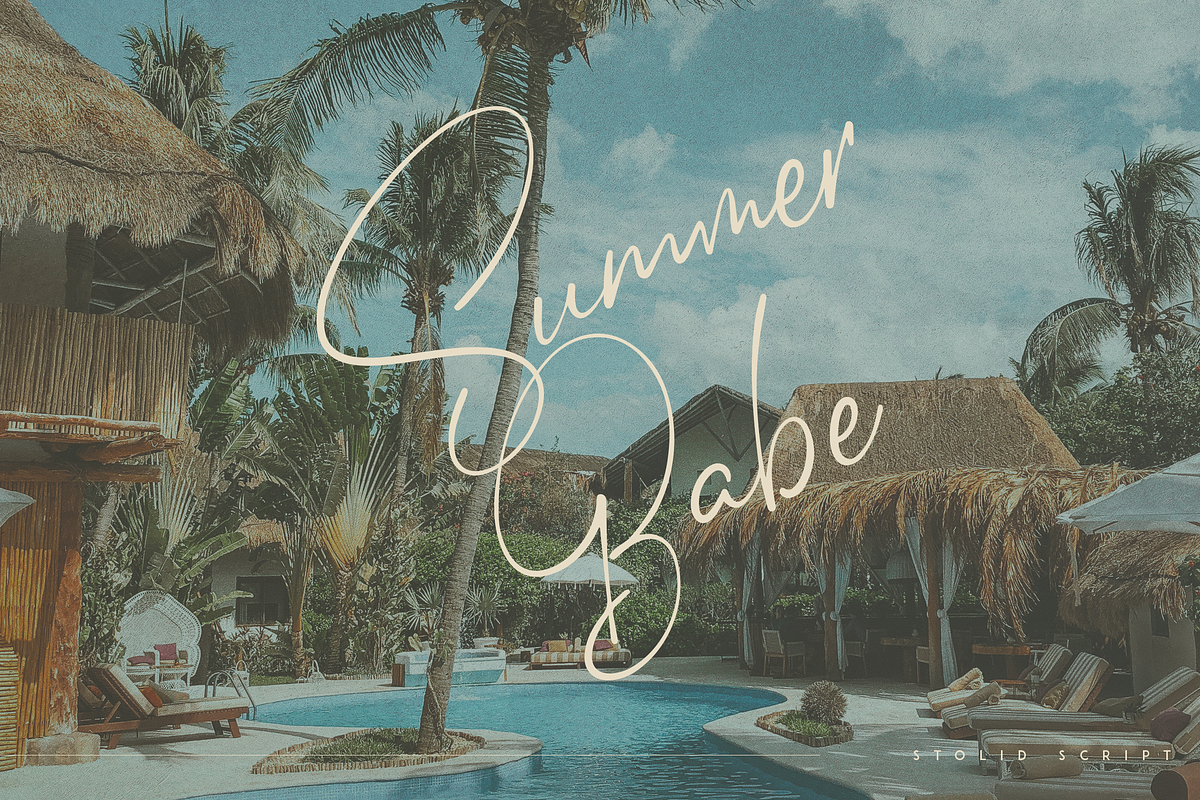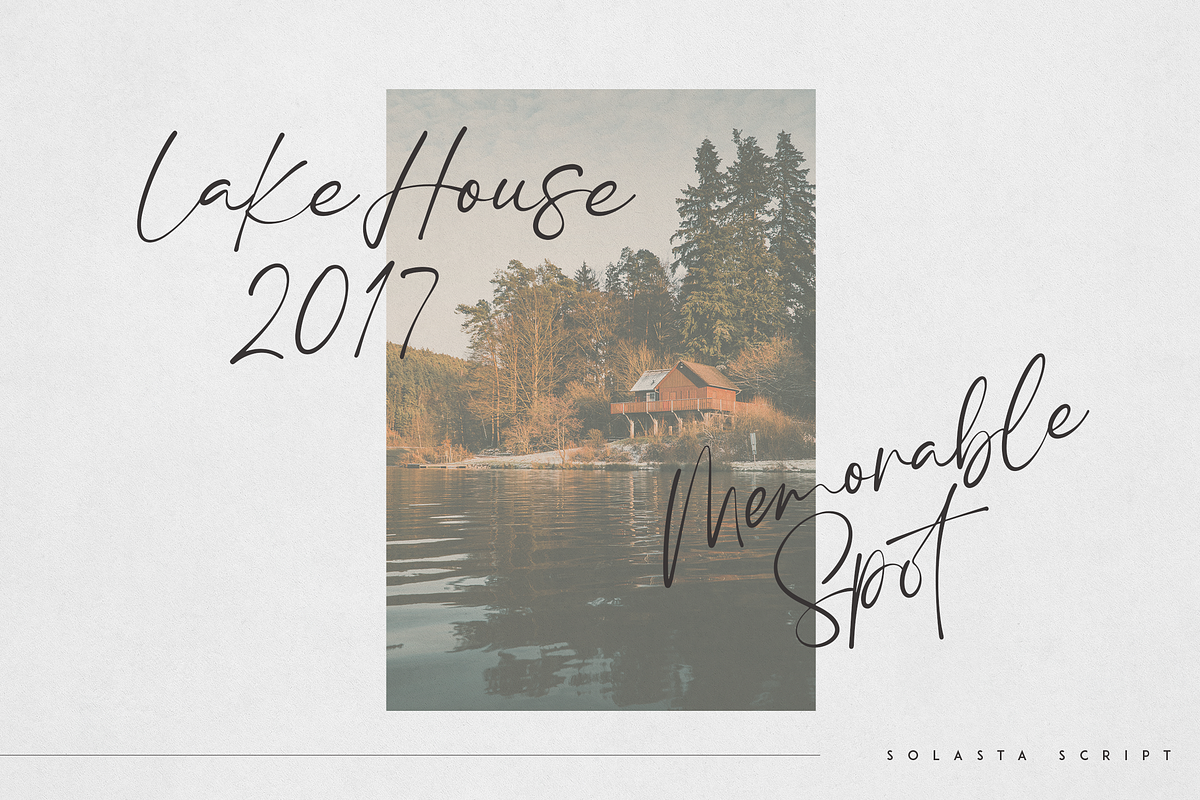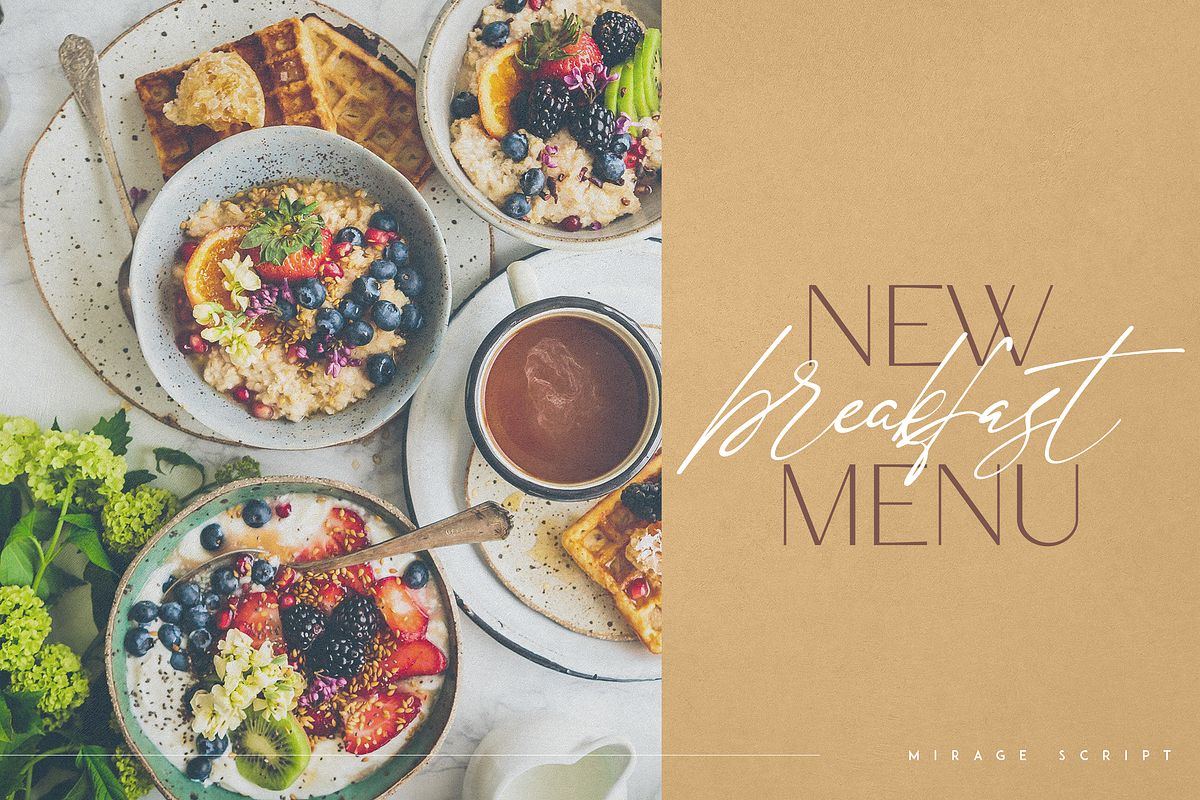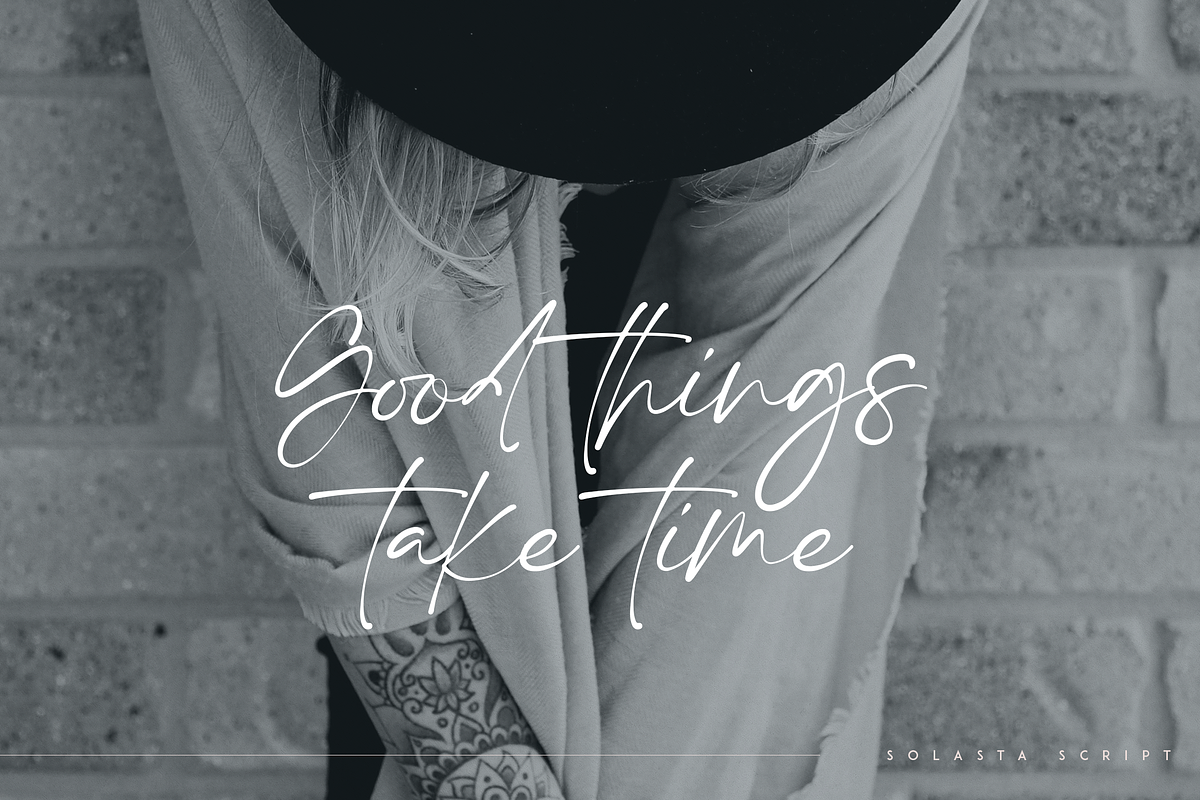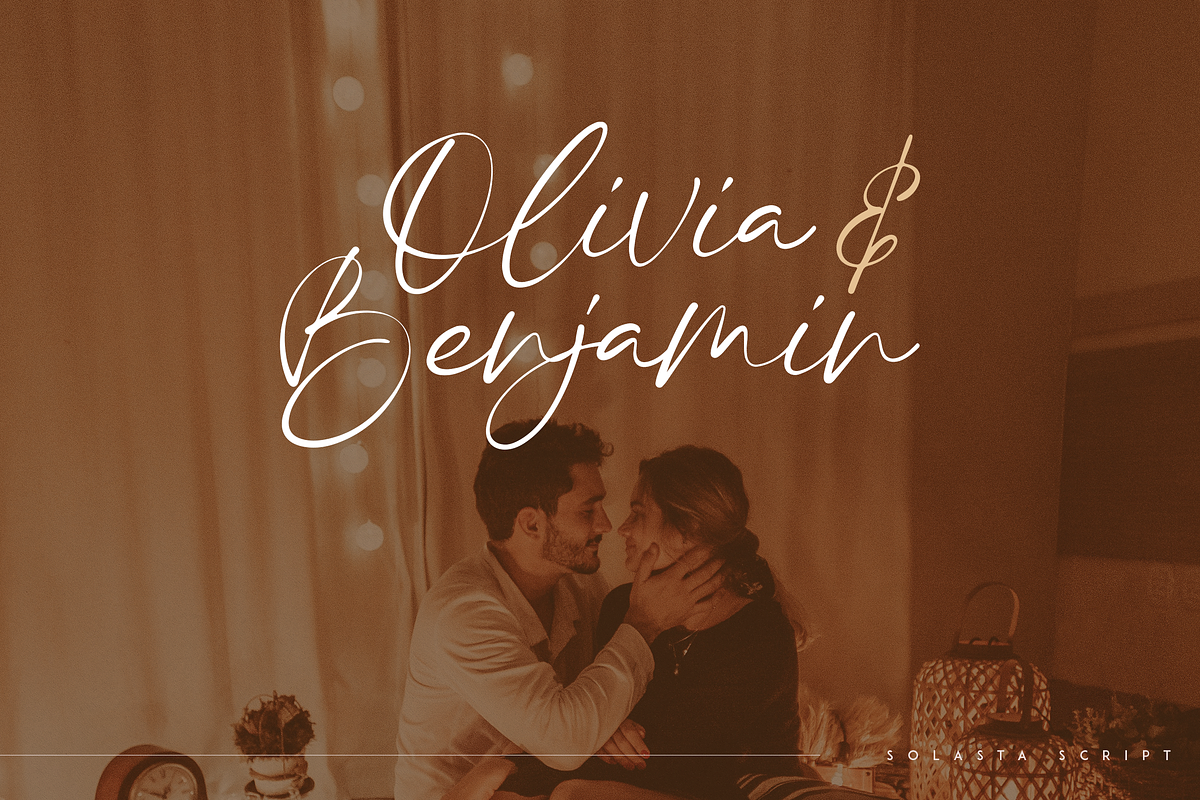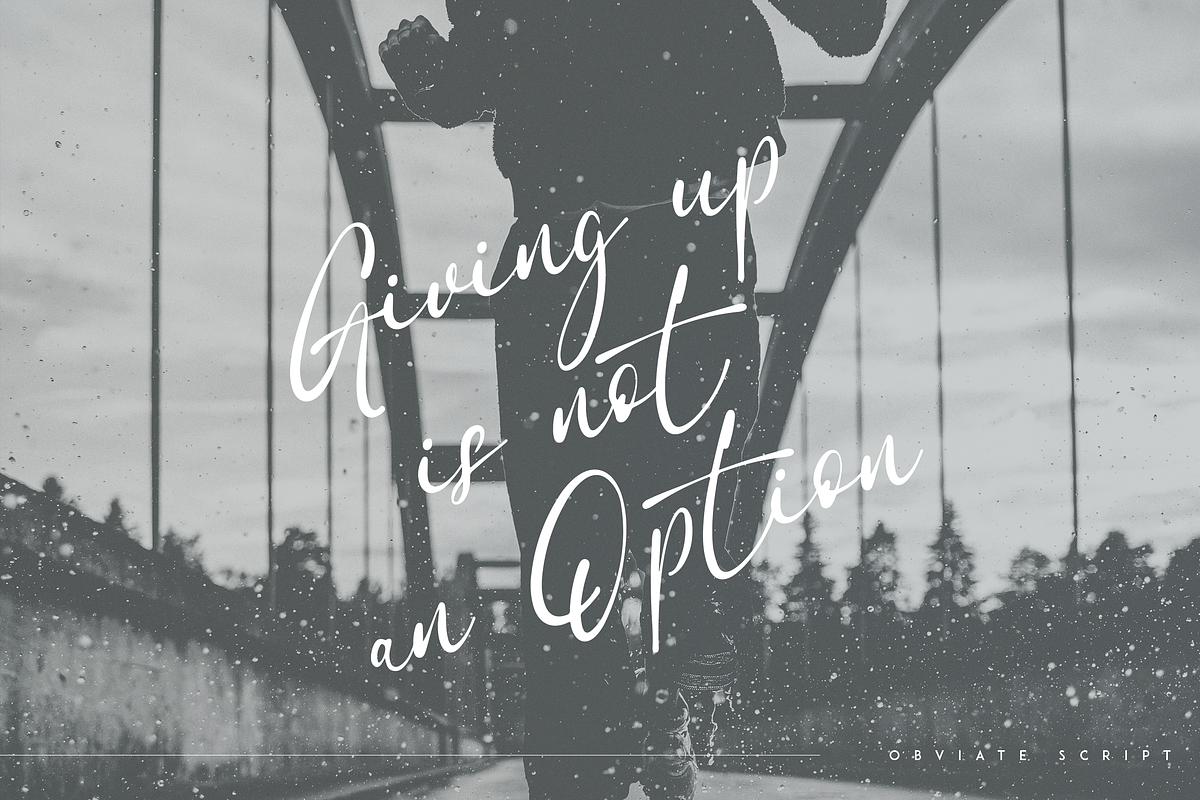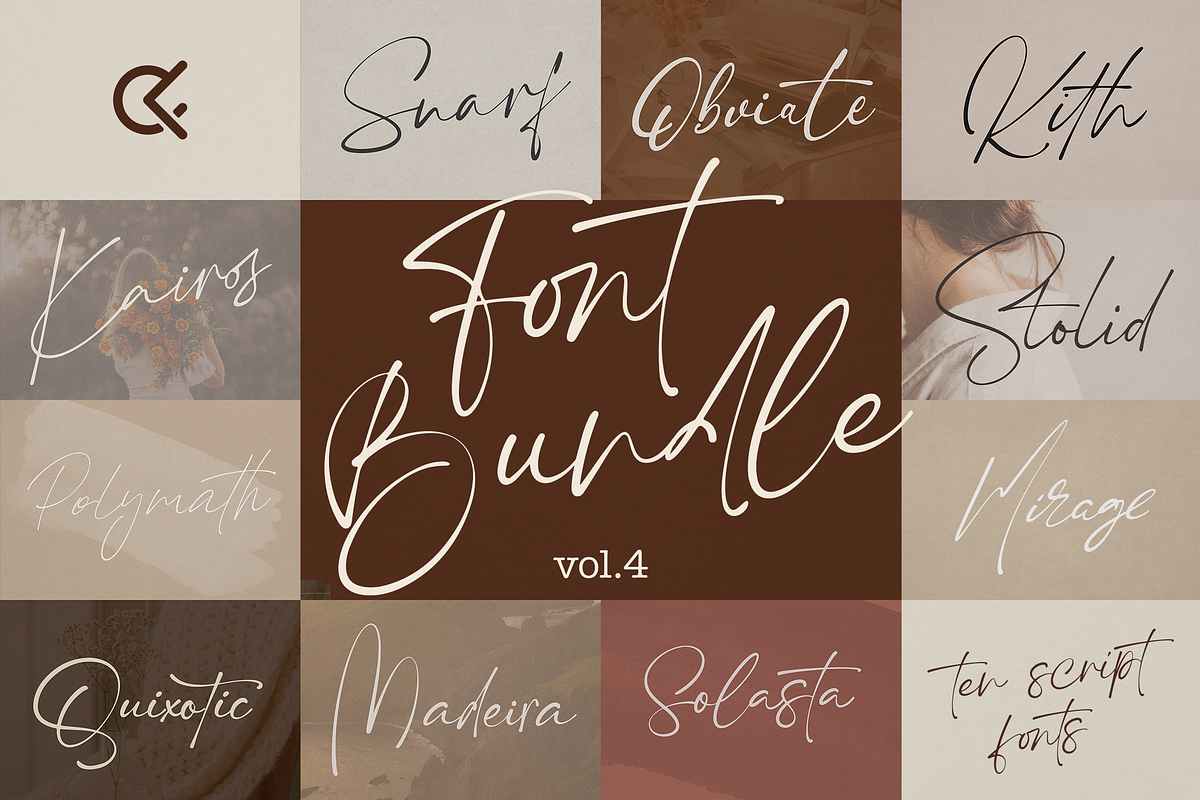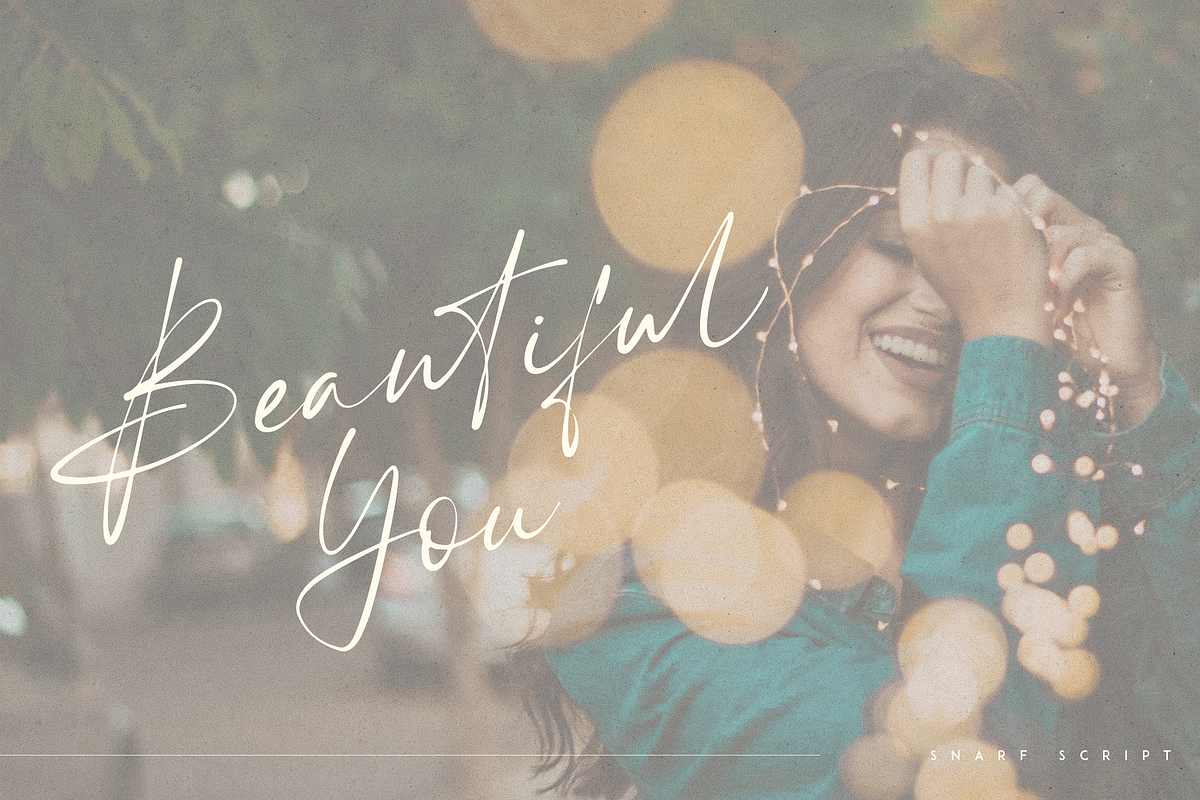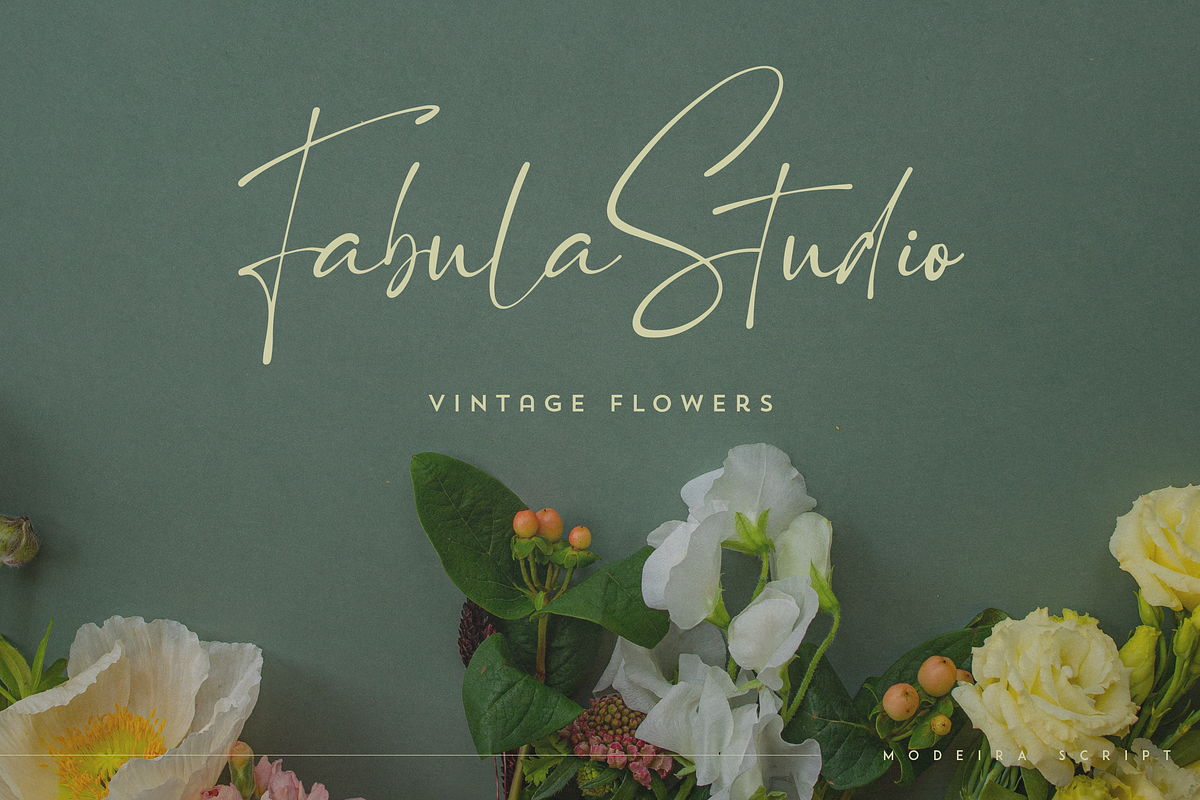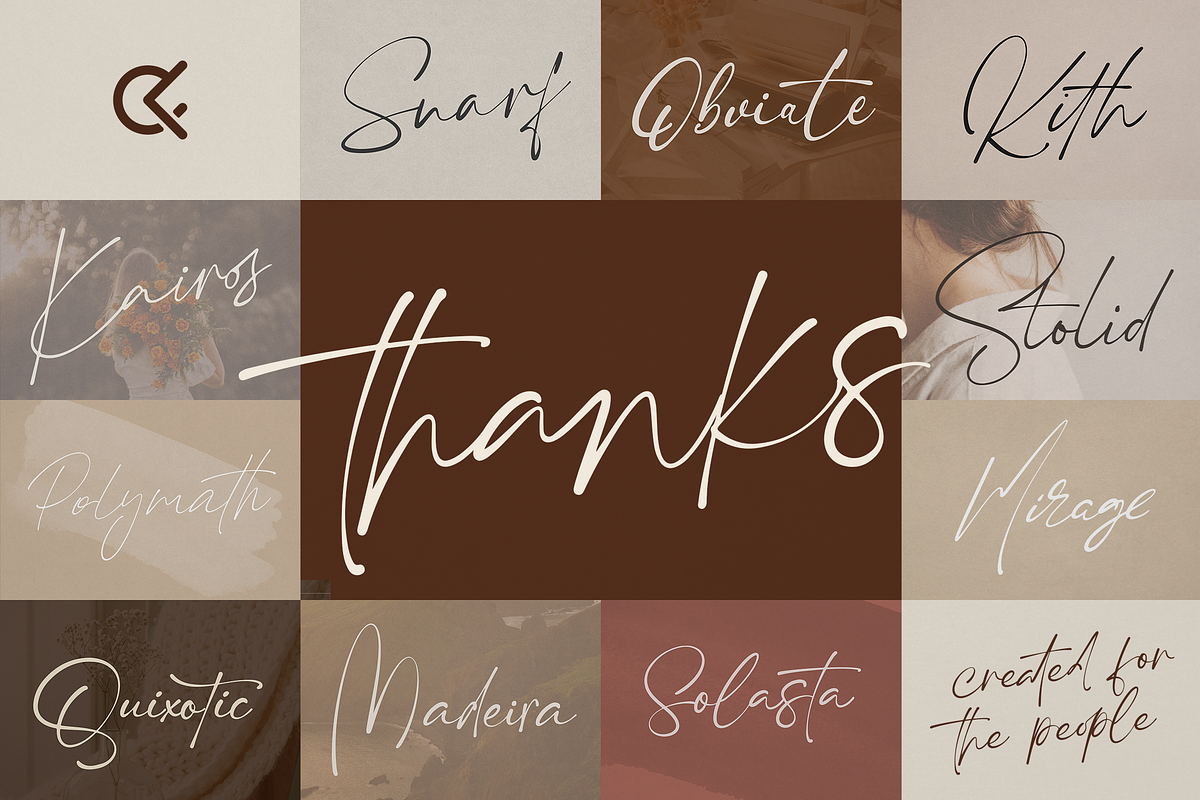
Introducing Font Bundle Vol.4 - 10 scripts
Make your projects stand out with Font Bundle Vol.4! This collection of 10 stylish, sophisticated script fonts feature ligature glyphs and multilingual support that provide great versatility in small or large sizes - perfect for everything from crafting a logo to sprucing up product packaging or magazine headers. You'll be sure wow everyone with the beautiful hand lettered elegance this bundle brings!
PRODUCTS INCLUDED
- Snarf modern script - https://creativemarket.com/OnlyFonts/7524831-Snarf-modern-script
- Obviate organic script - https://creativemarket.com/OnlyFonts/7534002-Obviate-organic-script
- Kith - handmade script - https://creativemarket.com/OnlyFonts/7552960-Kith-handmade-script
- Stolid - modern script font - https://creativemarket.com/OnlyFonts/7795410-Stolid-modern-script-font
- Polymath - organic script font - https://creativemarket.com/OnlyFonts/7798288-Polymath-organic-script-font
- Kairos - modern script - https://creativemarket.com/OnlyFonts/7801802-Kairos-modern-script
- Quixotic - handmade script font - https://creativemarket.com/OnlyFonts/7807562-Quixotic-handmade-script-font
- Solasta - organic script font - https://creativemarket.com/OnlyFonts/7823624-Solasta-organic-script-font
- Mirage - creative script font - https://creativemarket.com/OnlyFonts/8448422-Mirage-creative-script-font
- Madeira - handmade script font - https://creativemarket.com/OnlyFonts/8452094-Madeira-handmade-script-font